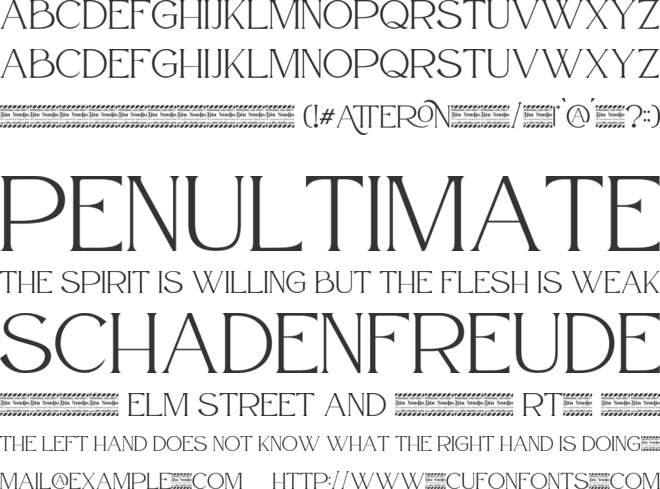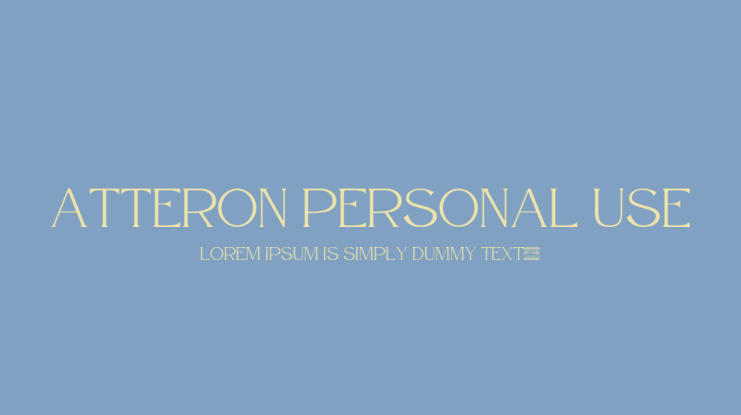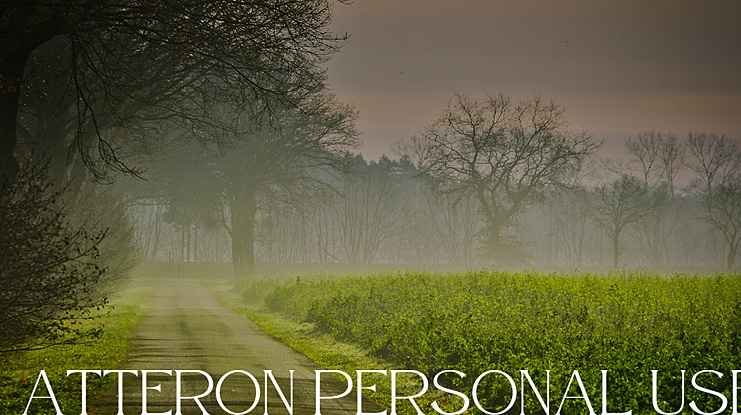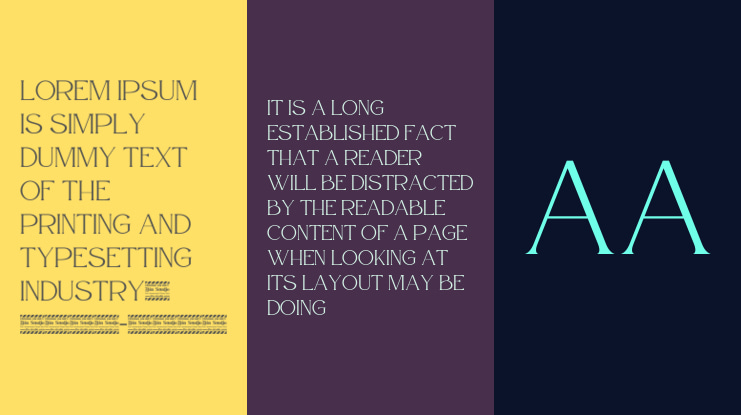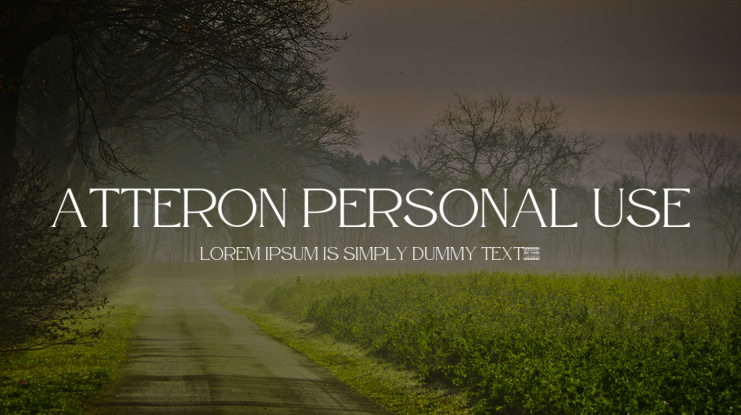
Atteron is a elegant serif font. Made for any professional project branding. It is the best for logos, branding and quotes. Every letter has a unique and beautiful touch.